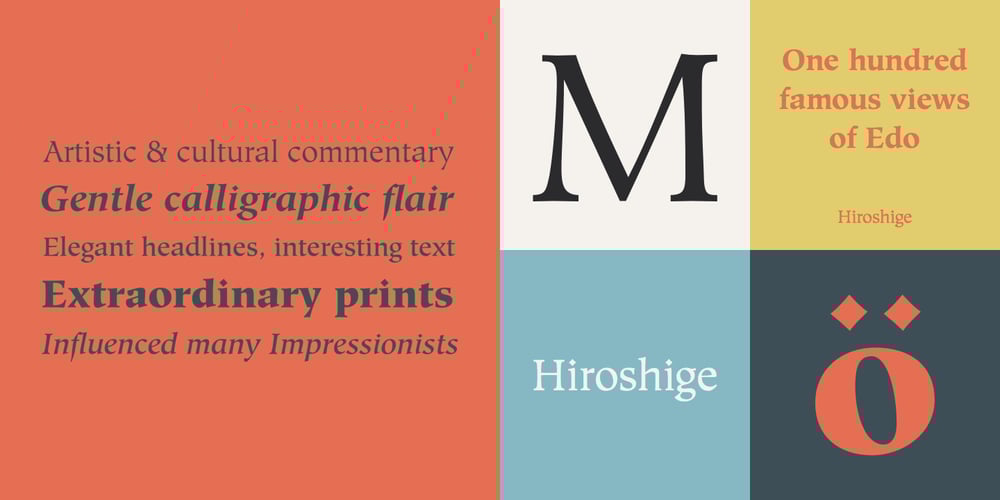
Hiroshige Font Family was designed by Cynthia Hollandsworth Batty and published by Monotype. Hiroshige contains 8 styles and family package options. Hiroshige was designed in 1986 by Cynthia Hollandsworth (now Batty) of AlphaOmega Typography, Inc. The typeface was originally commissioned for a book of woodblock prints by the great nineteenth-century Japanese artist Ando Hiroshige, whose work influenced many Impressionist artists. The typeface has a gentle calligraphic flair that creates an interesting page of text as well as elegant headlines.